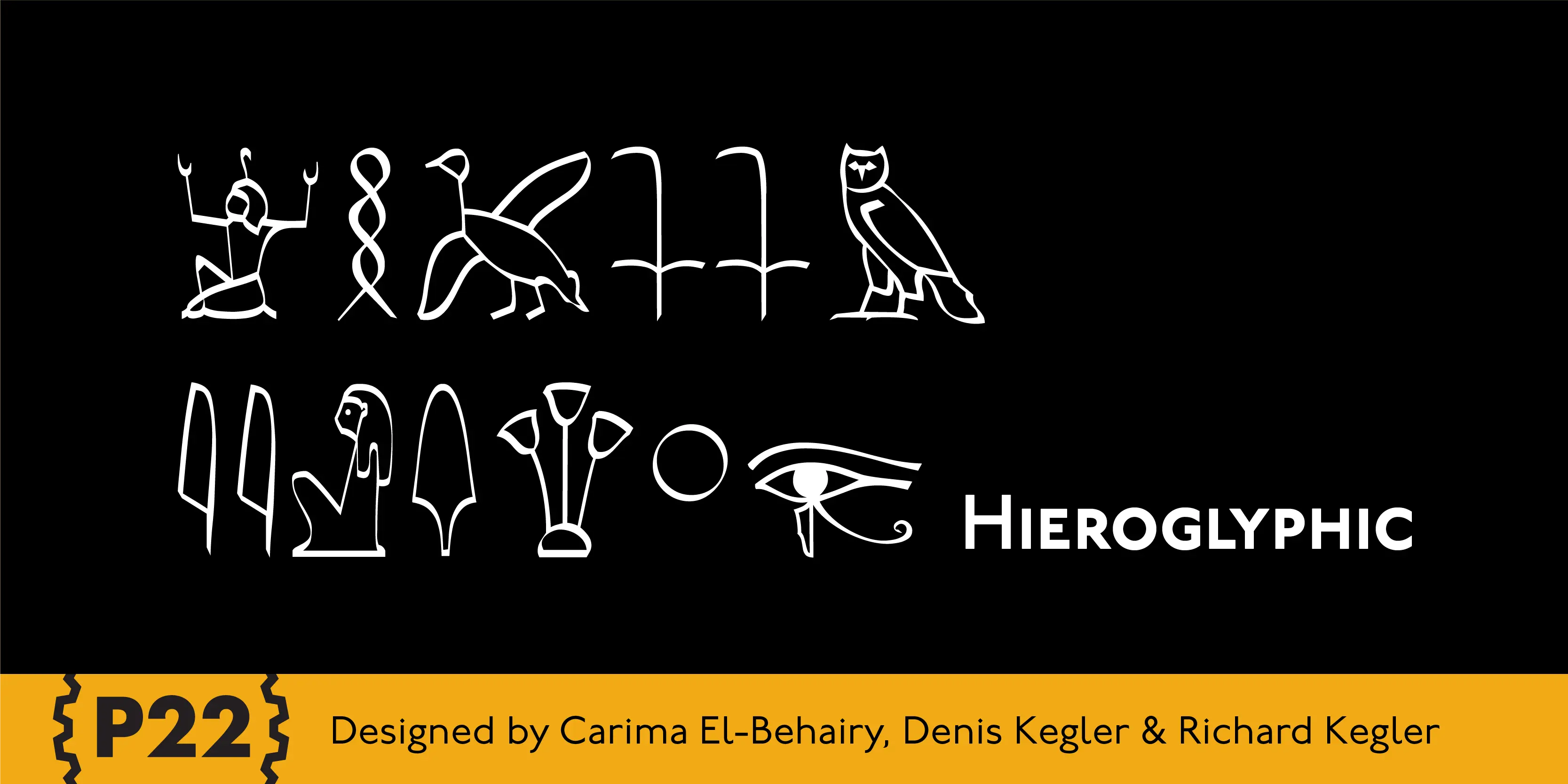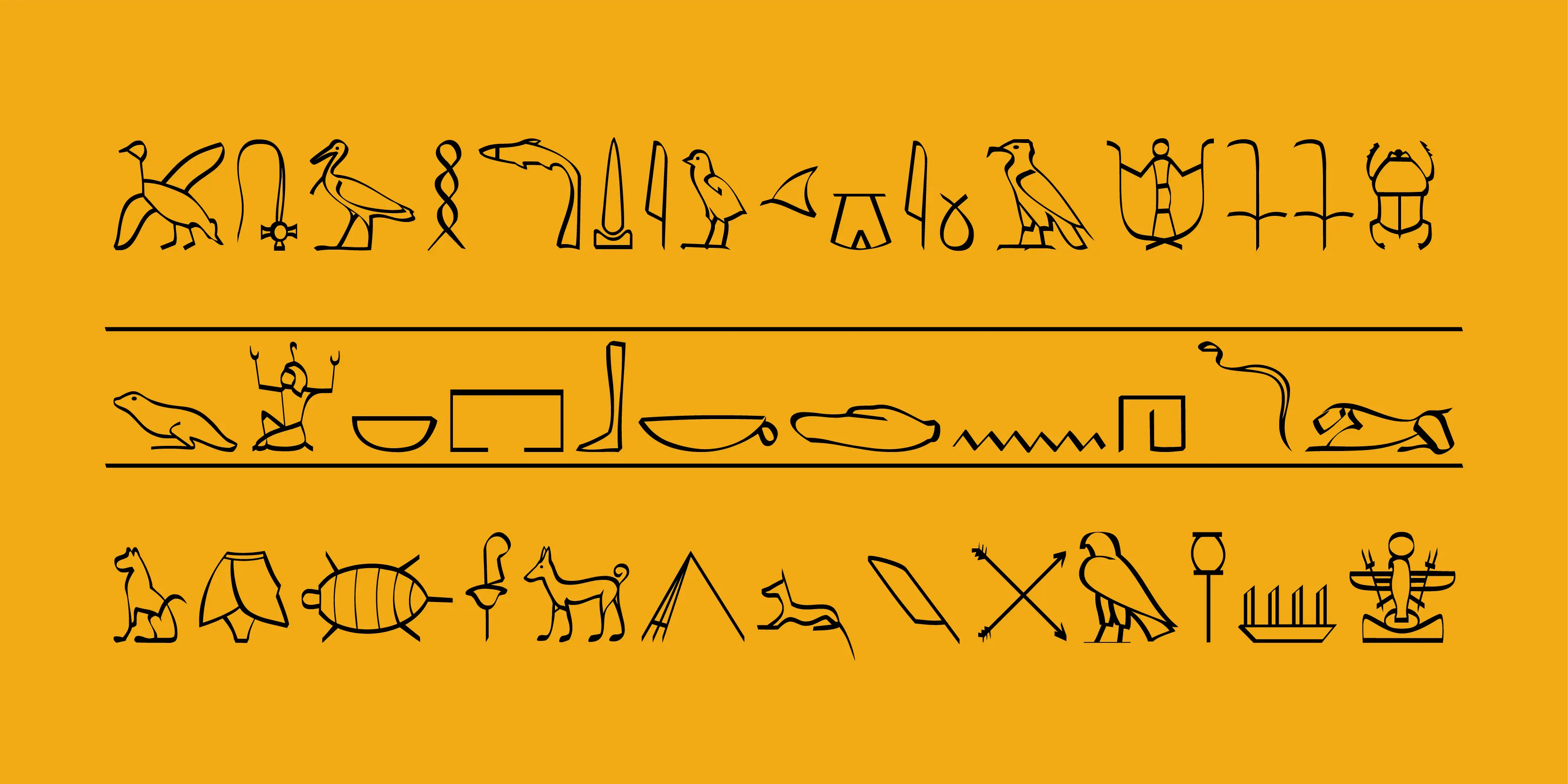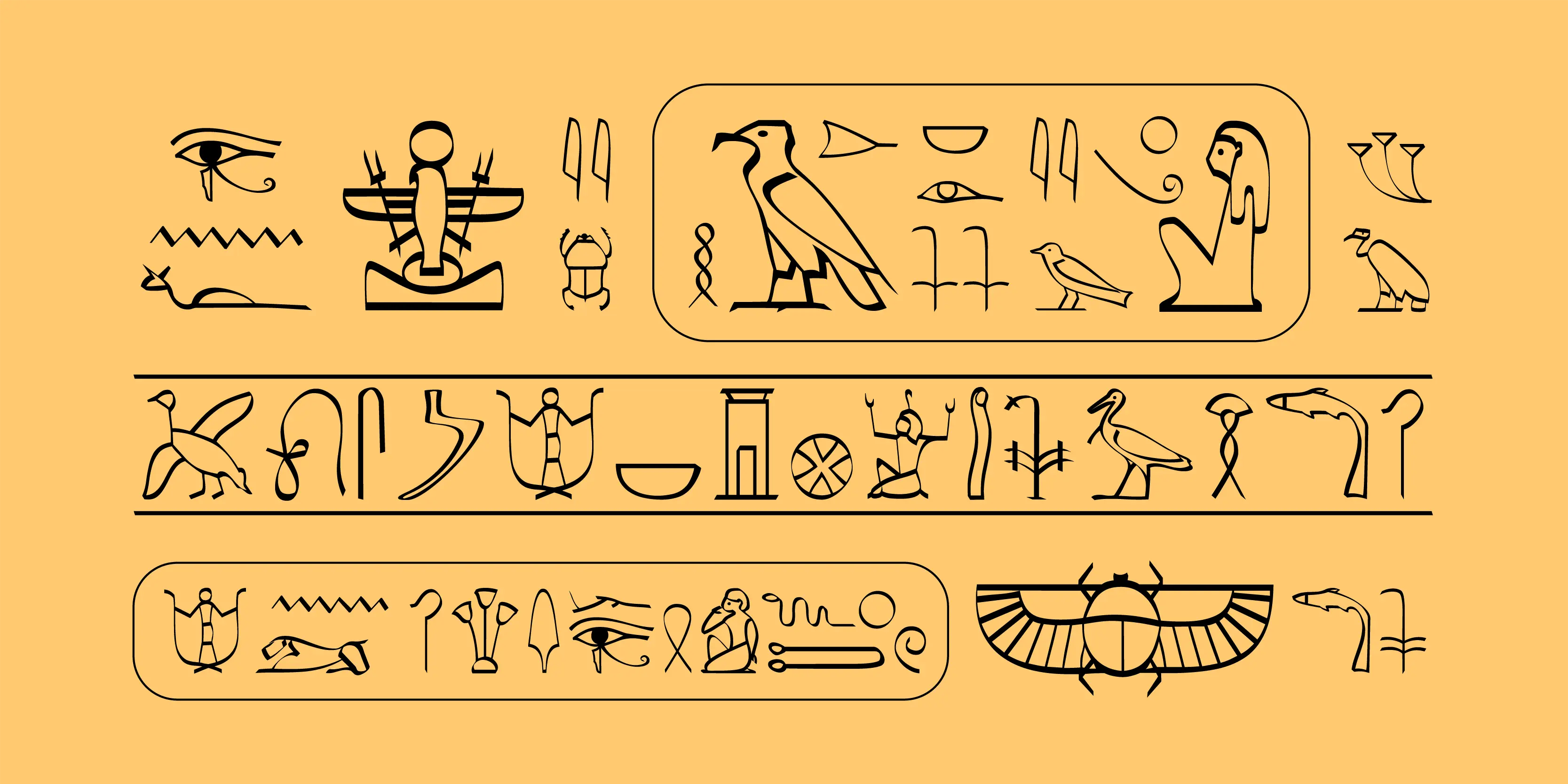
Hieroglyphic Font Family
Hieroglyphic
Hieroglyphs were a pictorial alphabet used in Ancient Egypt from 3100 BC to approximately 300 AD. This font set features over 250 different phonetic and decorative hieroglyphics, complete with an extensive translation chart. P22’s Hieroglyphic font adapts one of the world’s most ancient forms of art and communication for today’s technology. Note: This is not an automatic word translator. It is a font set. It is used just like any other font and does not require special software skills.